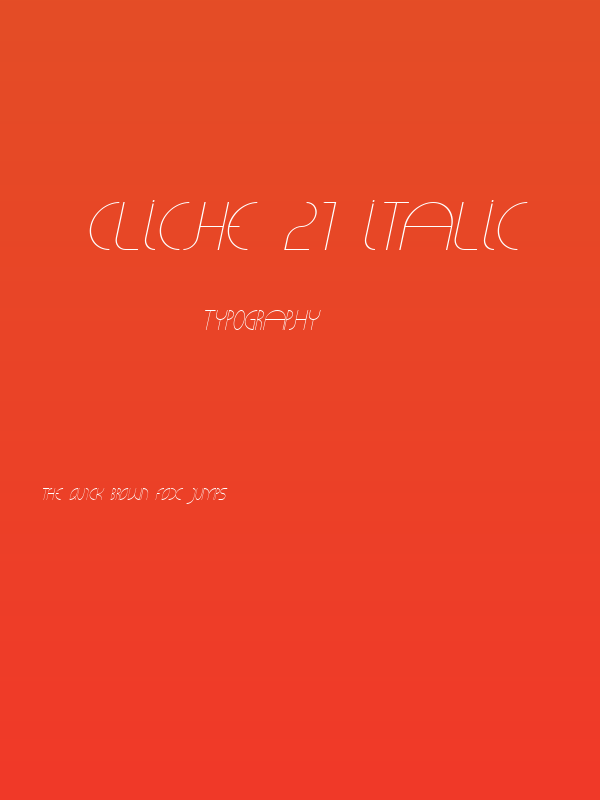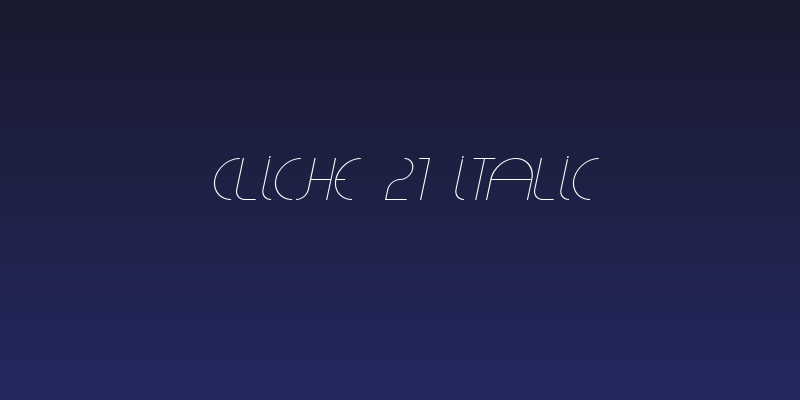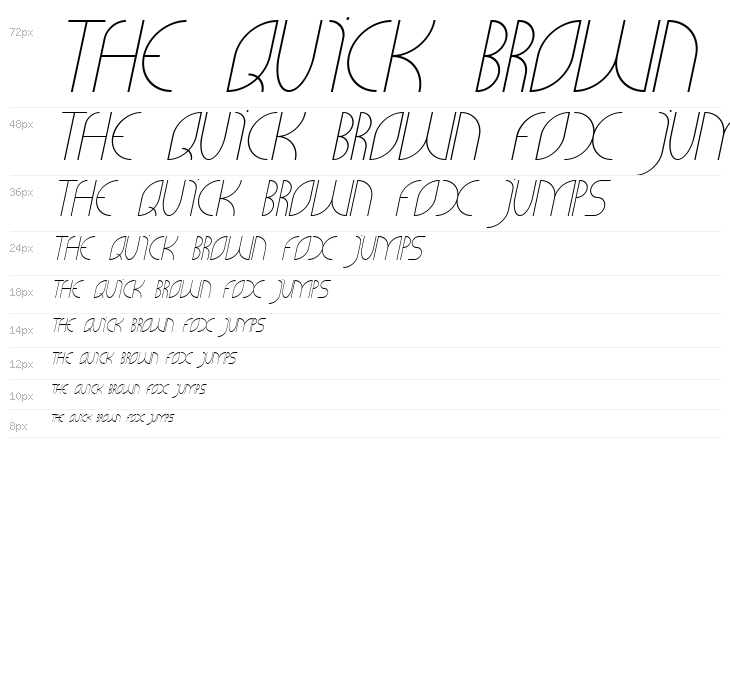
CLiCHE 21 Italic Font
CLiCHE 21 Italic Description
This font features a sleek and modern design with a distinct italic slant, giving it a dynamic and forward-moving appearance. The characters are crafted with thin, elegant lines and a high level of curvature, particularly noticeable in letters like 'C', 'G', and 'S'. The uppercase and lowercase letters maintain a consistent style, with the lowercase letters mirroring the uppercase in form but reduced in size. The numerals are designed to match the overall aesthetic, with a similar thinness and curvature. Special characters are also included, maintaining the same stylistic elements. The font's overall look is sophisticated and contemporary, making it suitable for projects that require a touch of elegance and modernity.
| Use Case | Logos, Headlines, Branding |
| Proposed Projects | Ideal for fashion magazines, luxury branding, modern art posters, and high-end product packaging. |